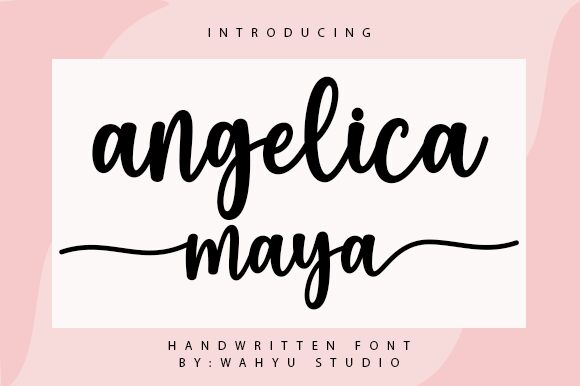
Angelica Maya
Angelica Maya, the latest creation by Wahyu Studio, is a beautiful handwritten font that will elevate your projects to the next level. With its elegant curves and flowing lines, this semi-bold font exudes class and sophistication. Perfect for wedding invitations, branding materials, or social media graphics, Angelica Maya will add a touch of charm and personality to any design. Its versatility makes it suitable for both print and digital media, while its slim width ensures readability in small spaces. Let Angelica Maya be the voice of your brand – it's time to make a statement!